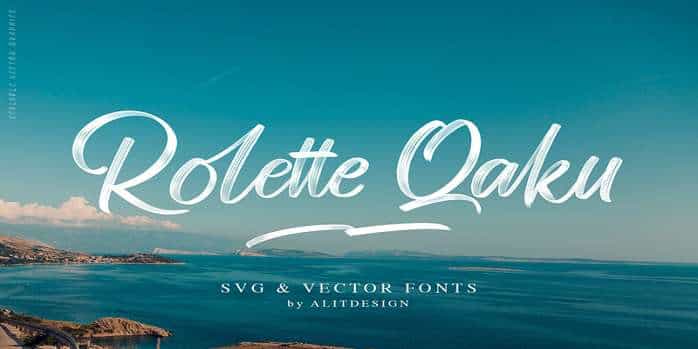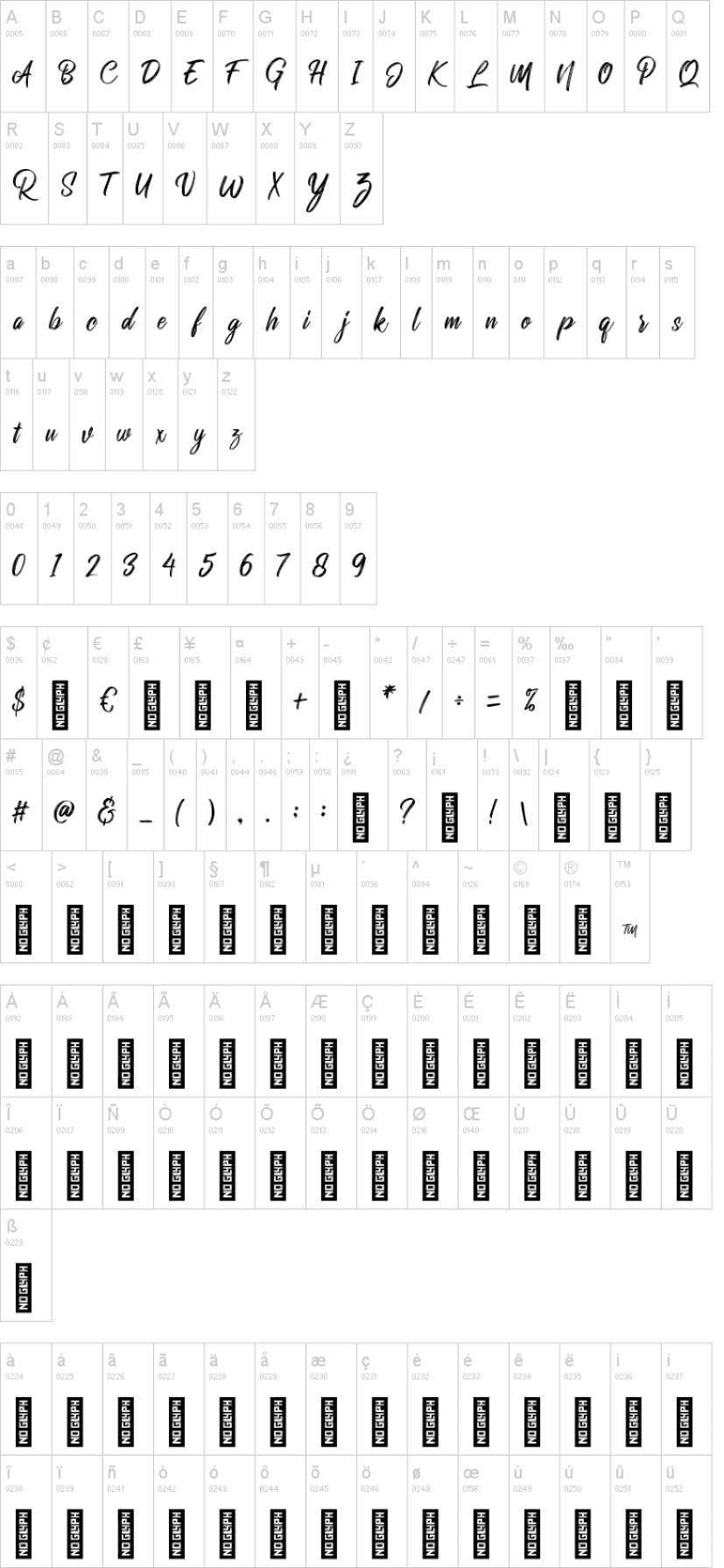
Discover Rollete Qaku Font, part of the Brush collection—a versatile and unique font perfect for adding a personal touch to your projects. Download it for free and enjoy crafting designs with style, from invitations to social media posts. This font is available exclusively for personal use, giving you the freedom to create without limits. Unlock your creativity with Rollete Qaku Font today!
Thanks for viewing our Rollete Qaku SVG and Regular font. Yeah . . Brush script with shadow in SVG format is a great font for lettering design such as a quote word design, adventurous design, sporty design, and much more if you have an energetic theme. Furthermore, you will receive the format of course vector soild with natural shadow and texture in SVG format and a regular format of course vector soild which has no limit on its size. in the case of regular format, you can be creative with the help of standard design tools like adobe illustrator and others.